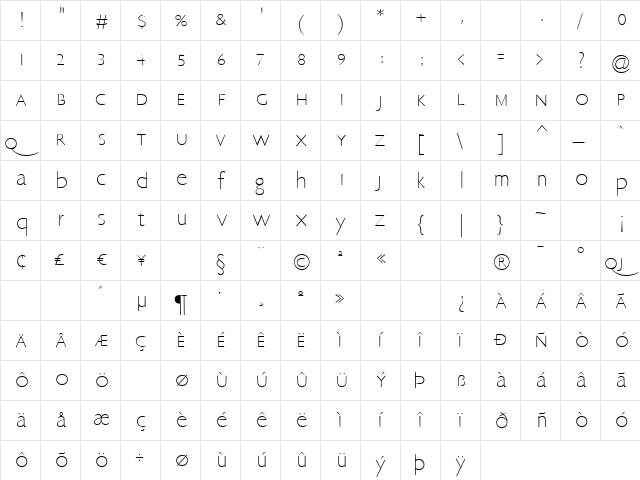
EricSans Regular
Design Context for EricSans Typeface
EricSans takes a measured approach to typography — its balanced proportions and neutral character make it a reliable workhorse for both digital and print work.